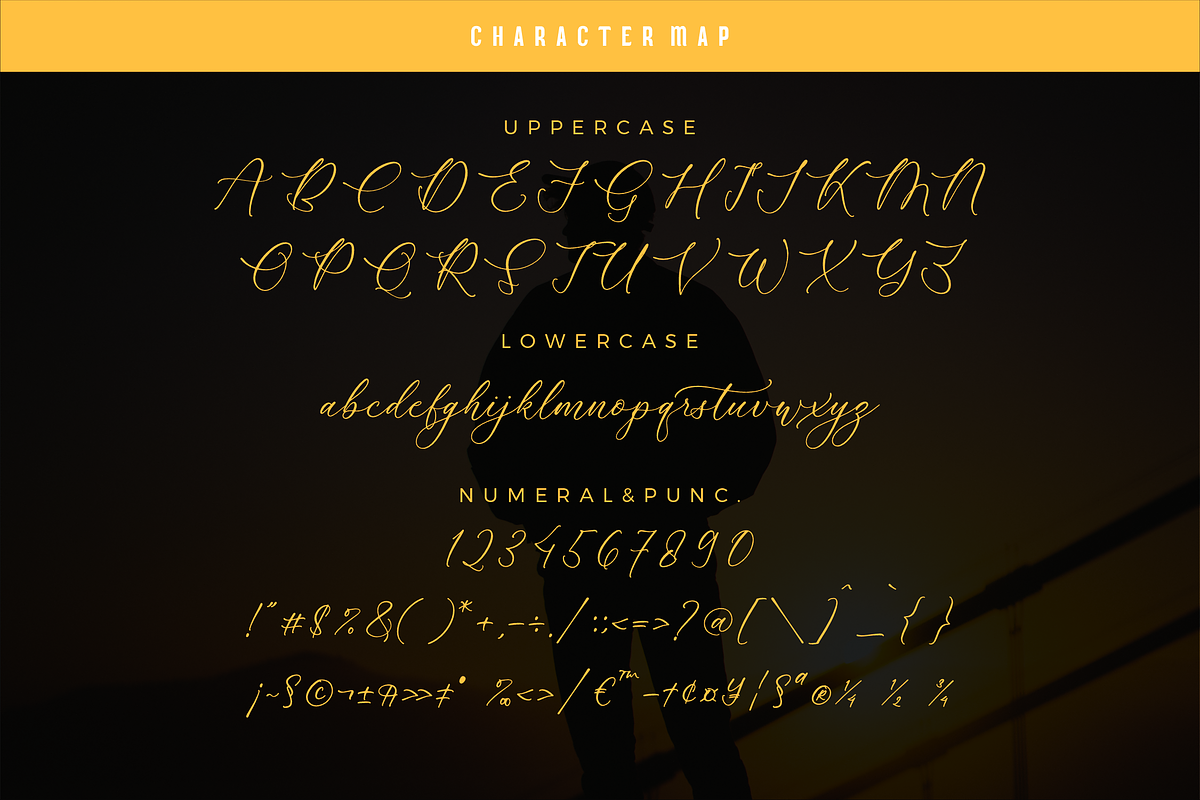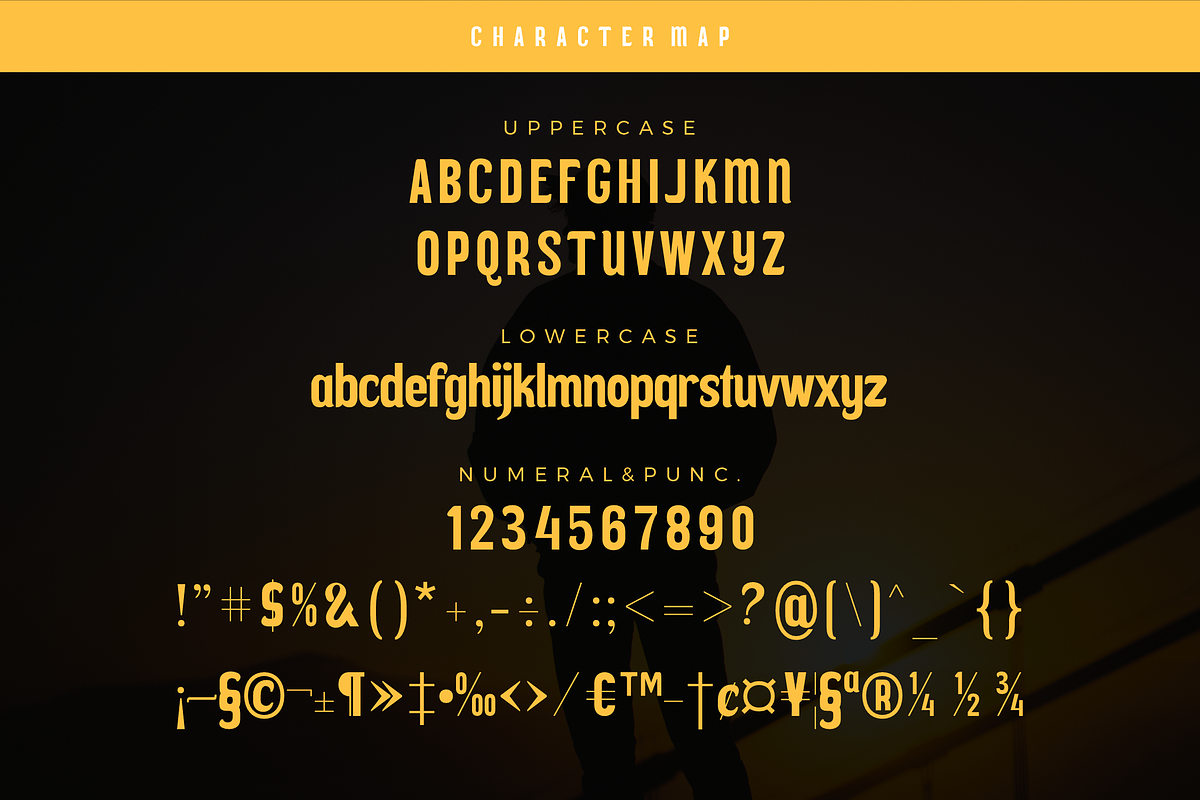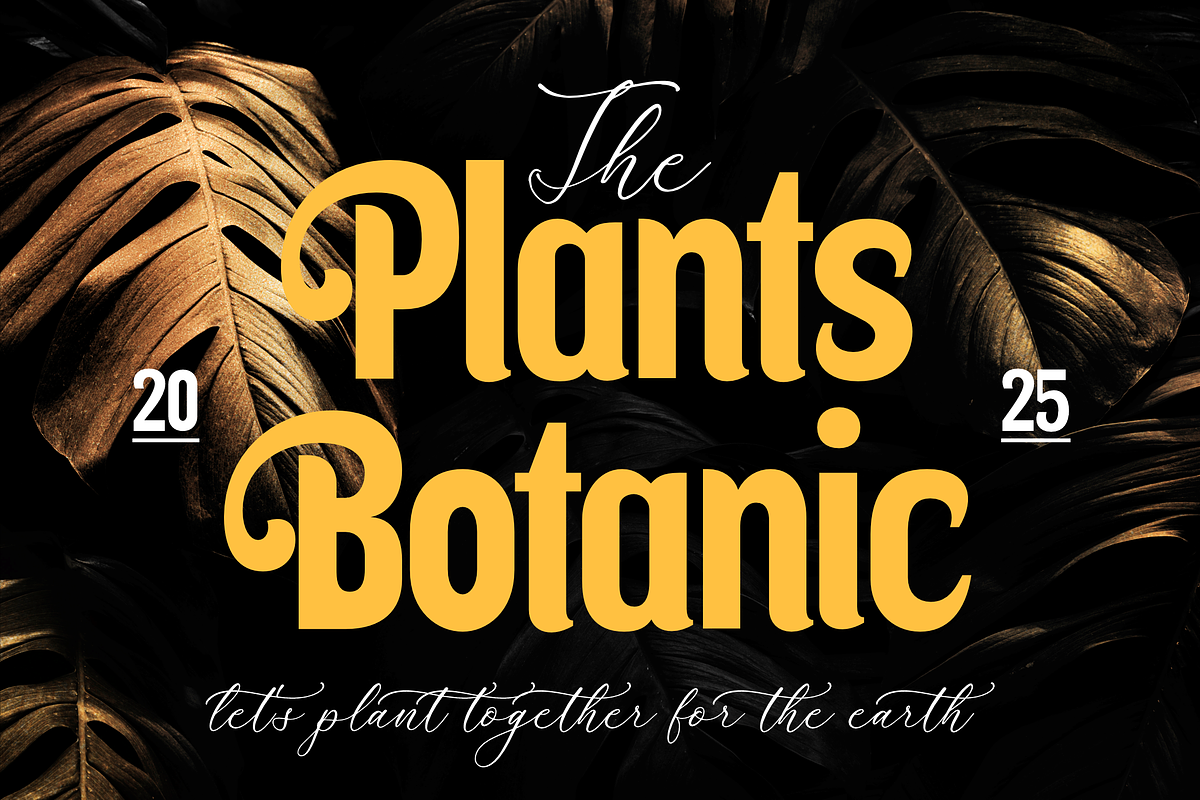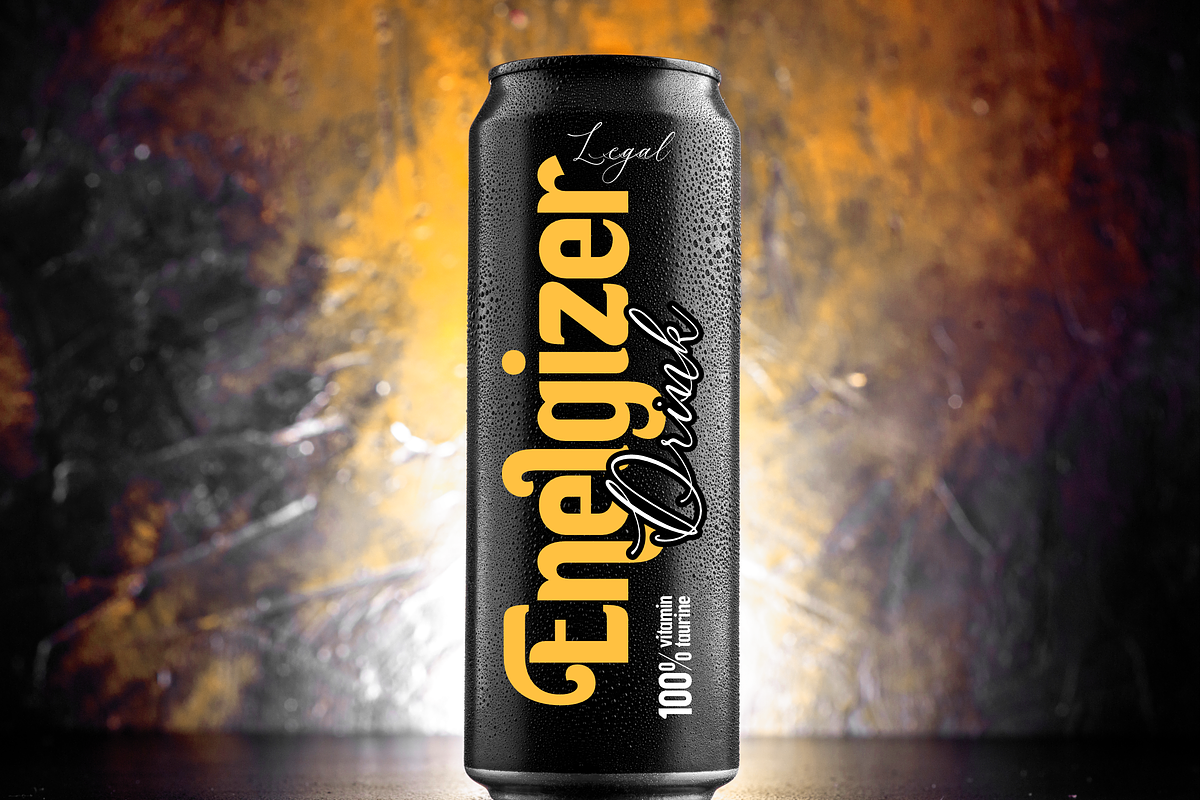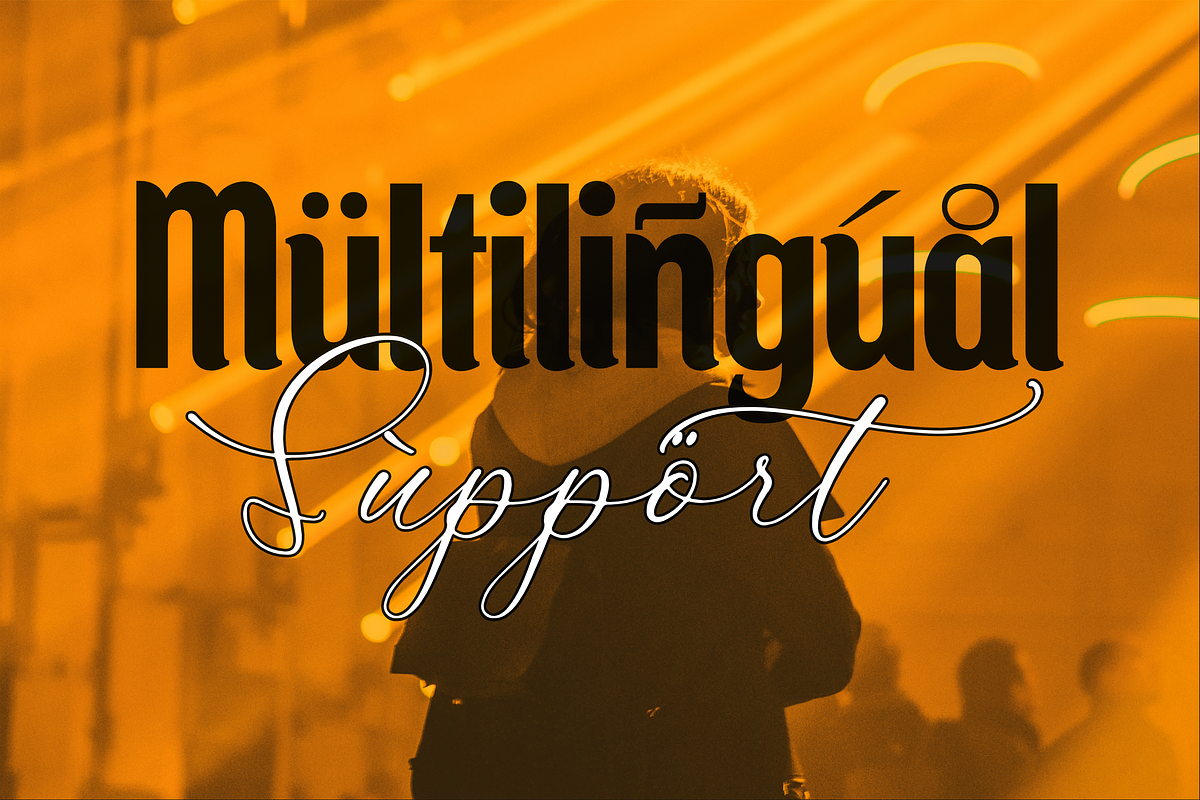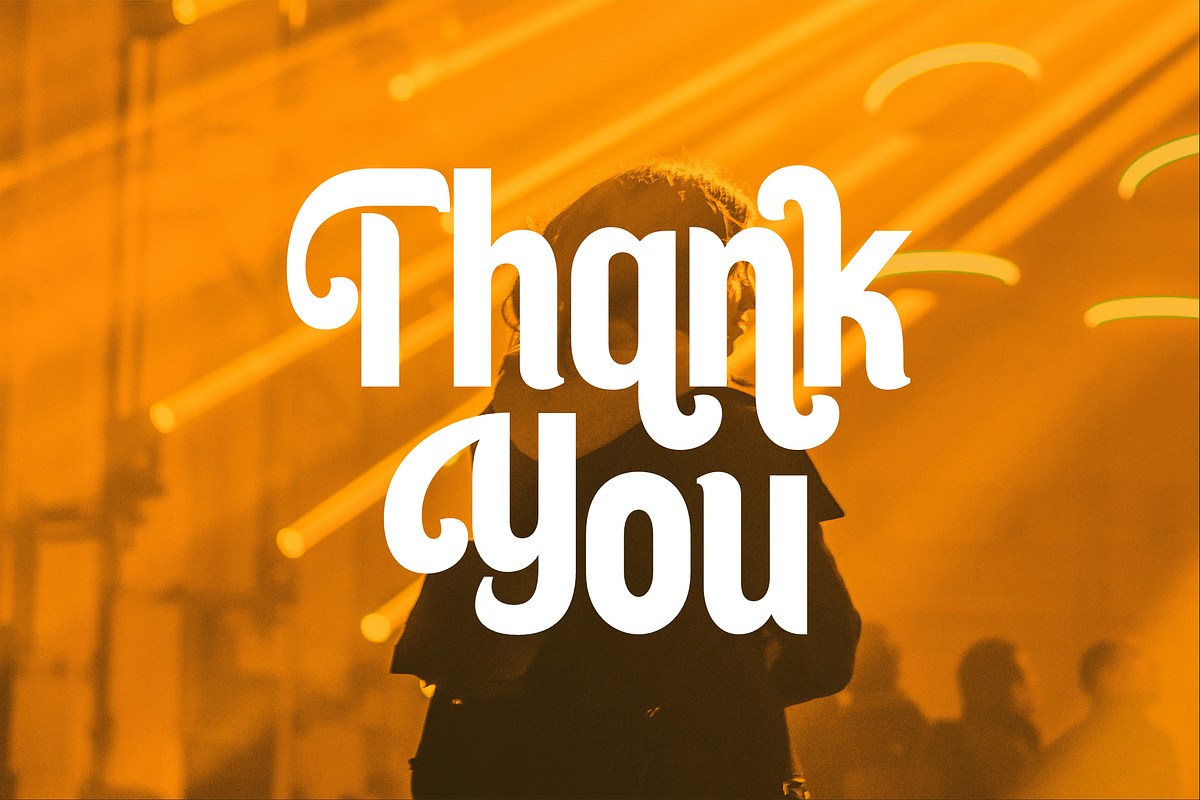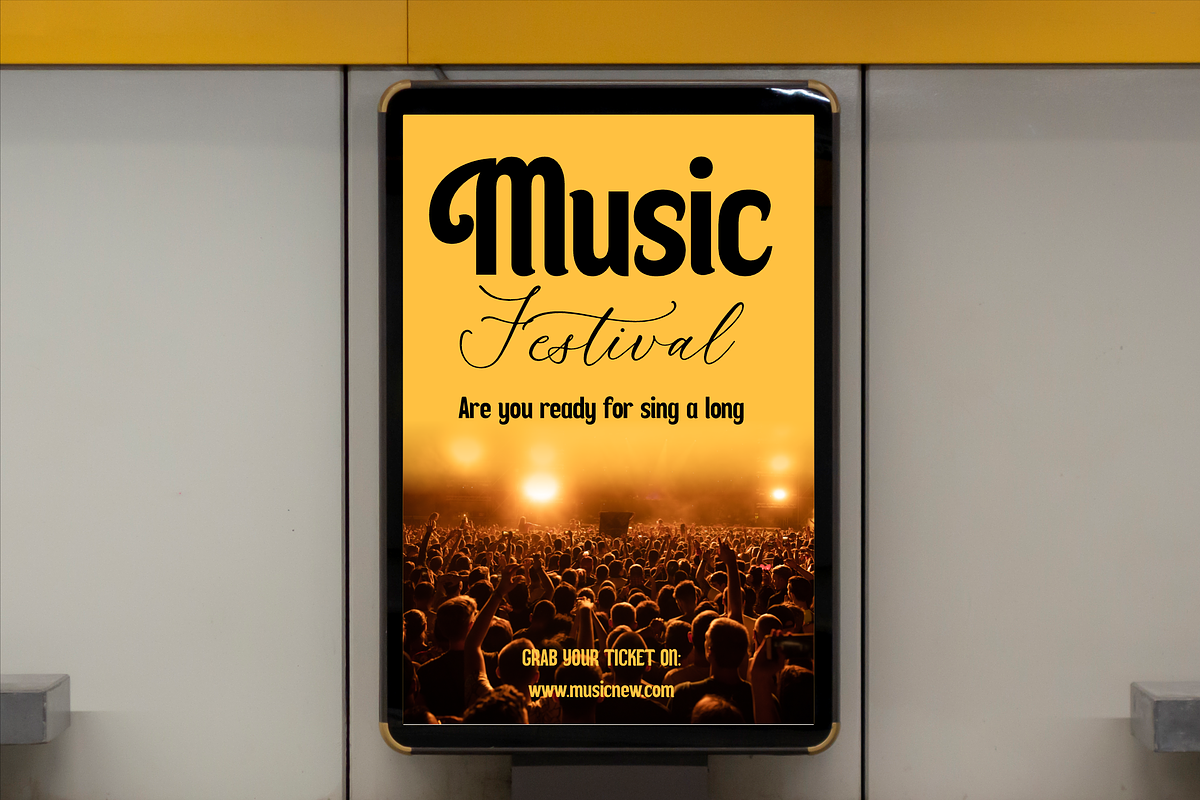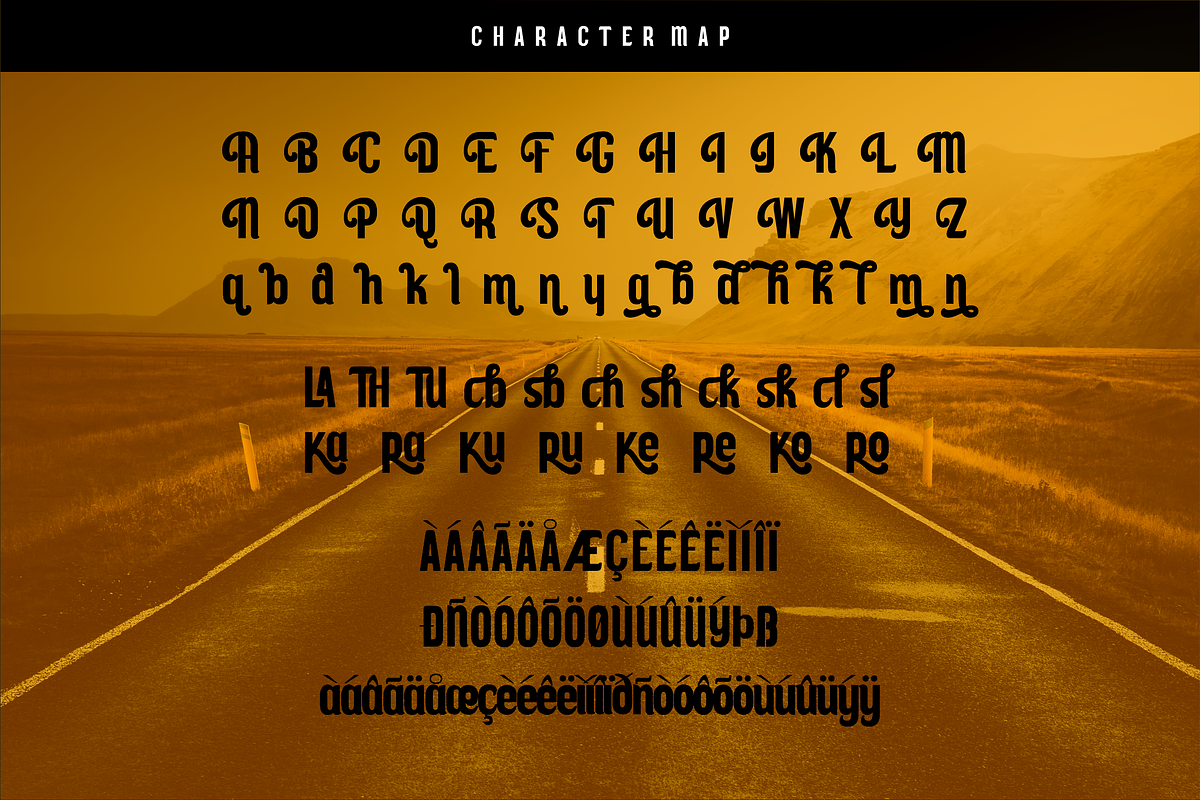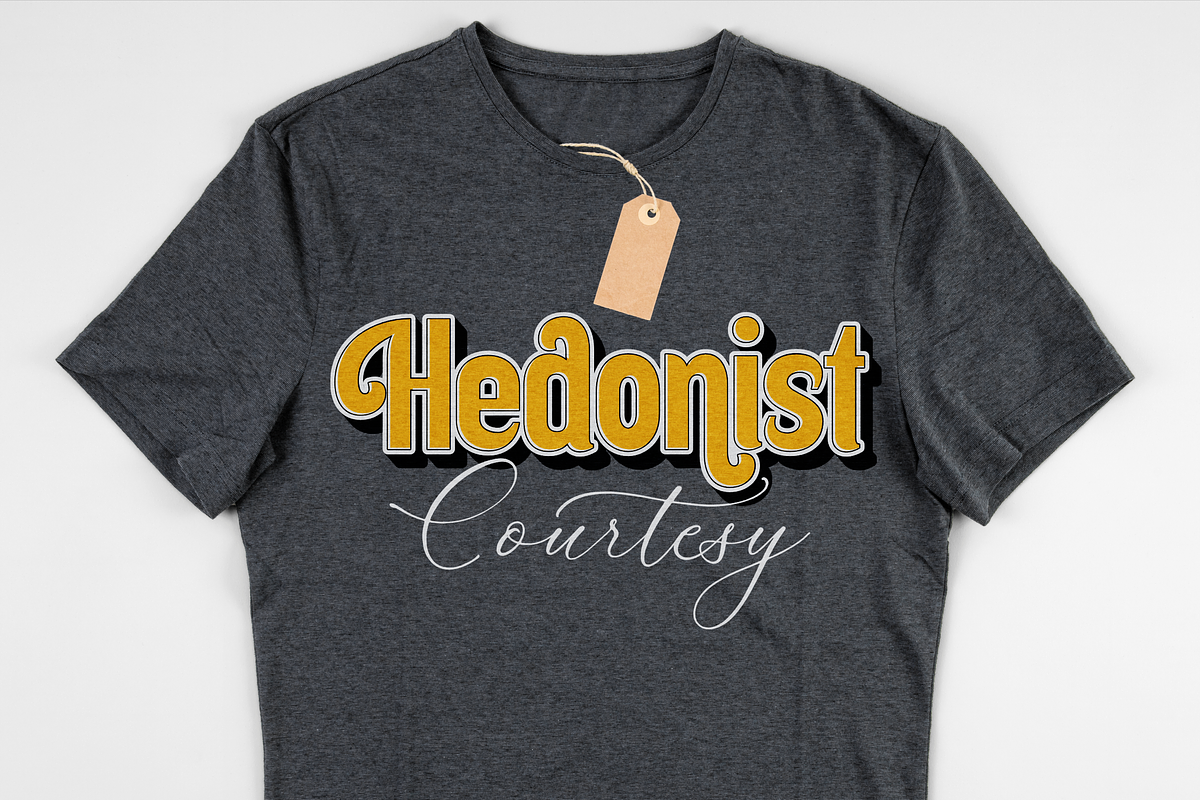
Askenild Kimortega Modern Font Duo
Proudly present Askenild Kimortega Font Duo , created by Storytype, A serif and script typeface that has own unique style & modern look. This typeface is perfect for an elegant & luxury logo, book or movie title design, fashion brand, magazine, clothes, lettering, quotes, and so much more.